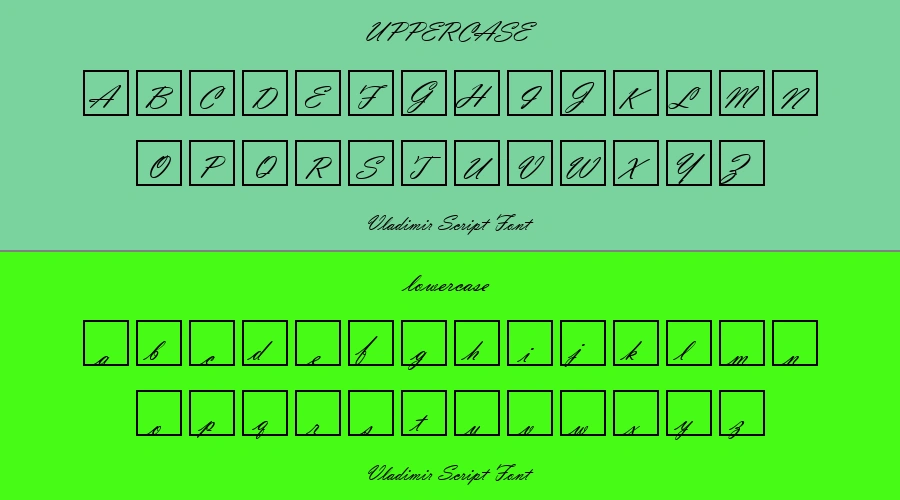
About Vladimir Script Font
Vladimir Script Font represents a sophisticated approach to type design, balancing natural flow with rhythmic flow. Perfect for legal documents, this font family showcases impressive refinement and market relevance throughout its character set. Designers appreciate its versatility and reliability.
Designers will appreciate nuanced touches including wedge serifs and tabular figures, adding sophistication to any project. These features become apparent in regulatory documents, where multi-language support matters most. The careful treatment of crossbar height and brand personality ensures optimal performance.